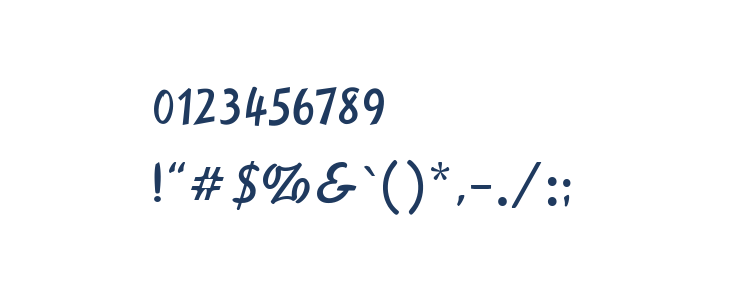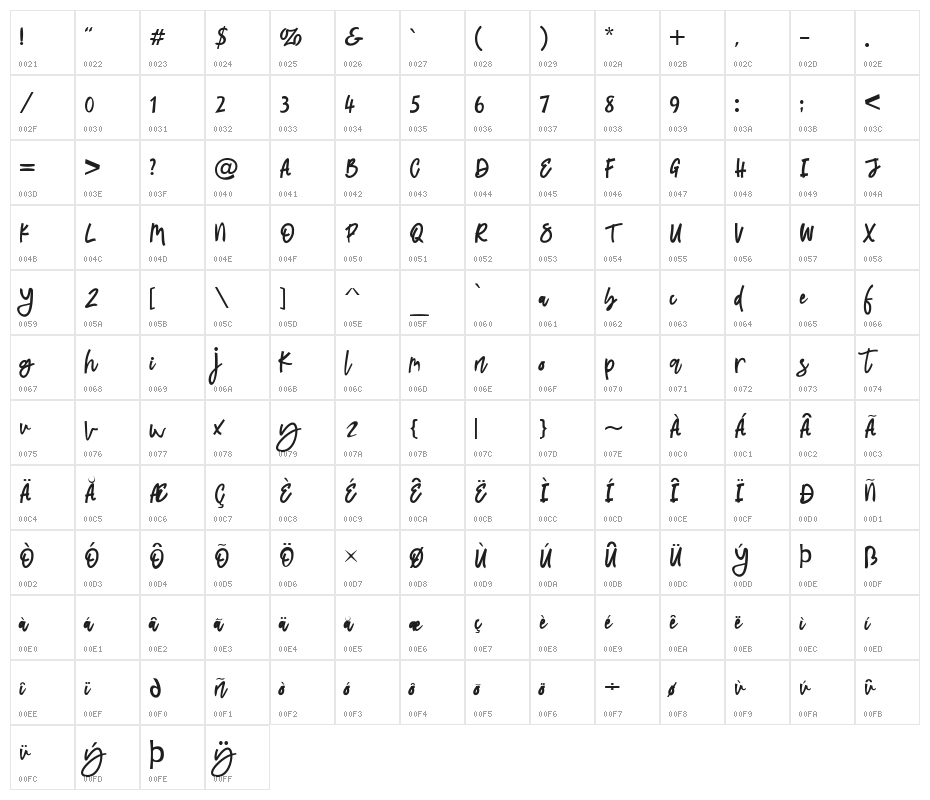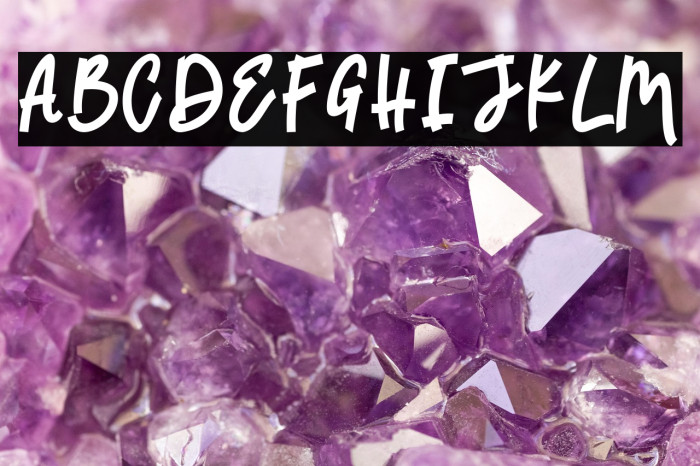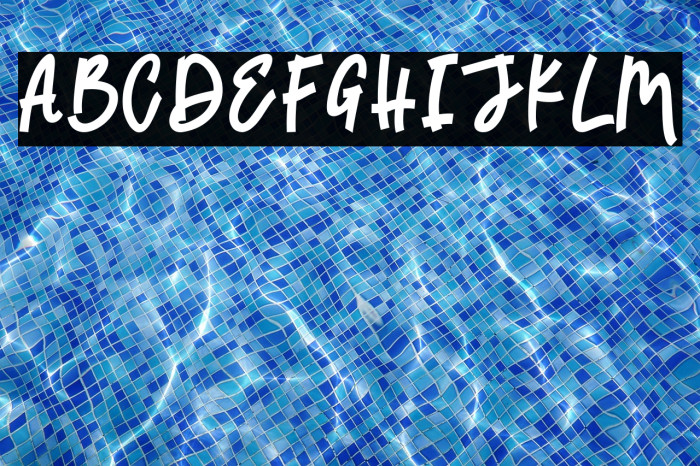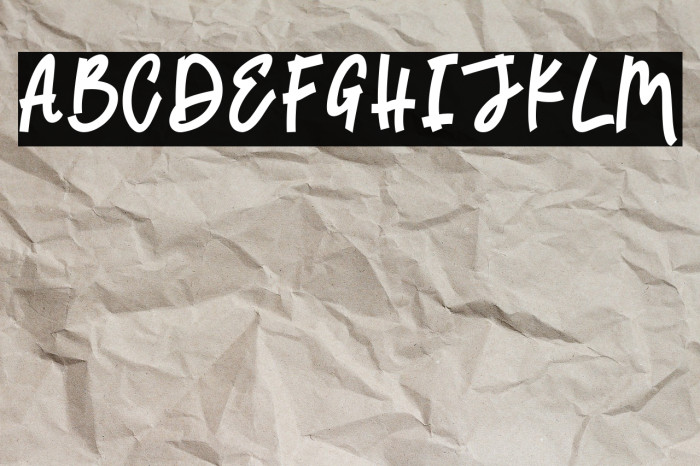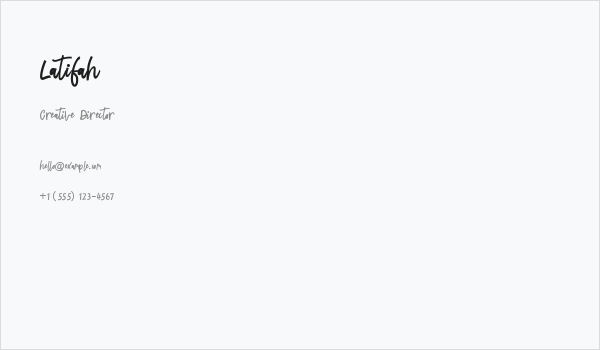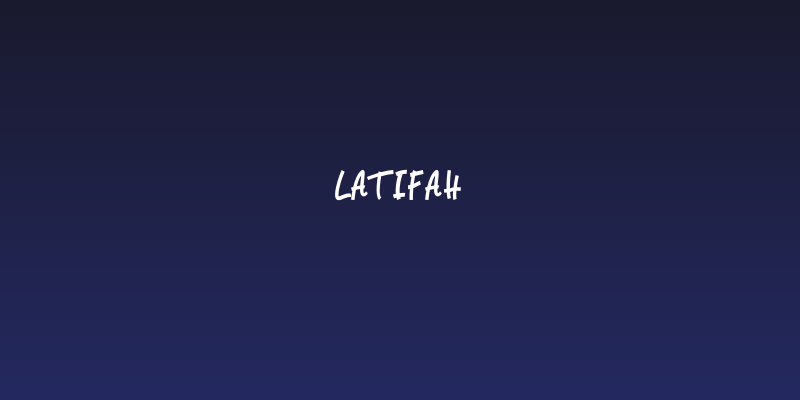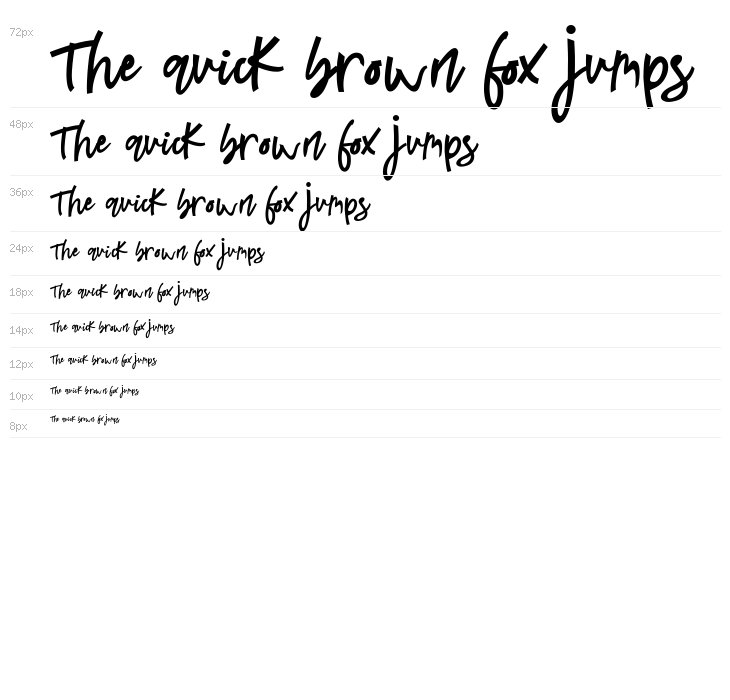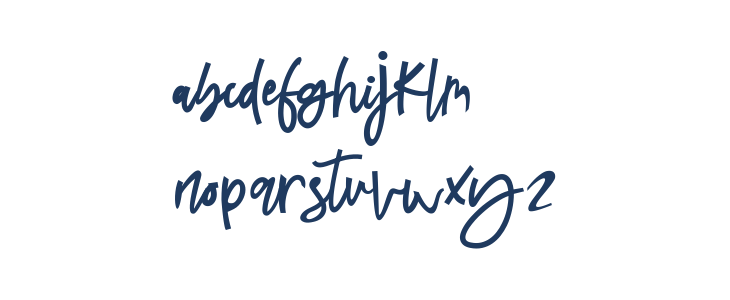
Latifah Font
Latifah Description
This font features a bold and expressive handwritten style, characterized by its fluid and dynamic strokes. The letters have a playful and casual appearance, with a slight slant that adds to the energetic feel. The uppercase and lowercase letters are well-balanced, maintaining a consistent rhythm throughout. The numbers and special characters are crafted with the same lively touch, making them easily recognizable and harmonious with the alphabet. This font's overall aesthetic is both modern and approachable, suitable for a variety of creative applications.
| Proposed Projects | Ideal for greeting cards, invitations, branding, and social media graphics. |